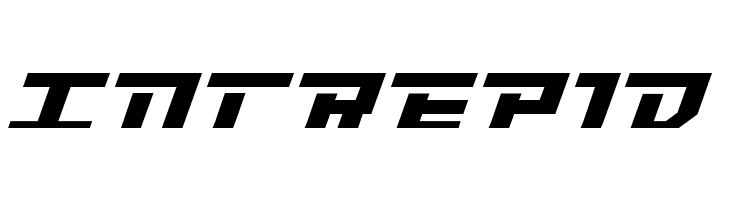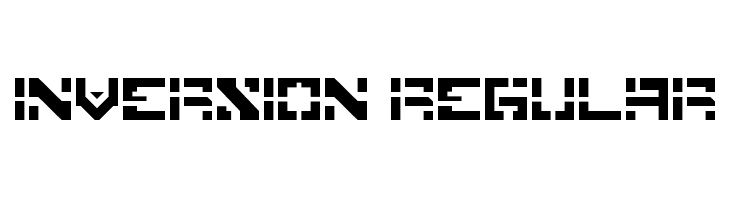
A bold, futuristic font with angular, geometric shapes and a dynamic slant.
A bold, futuristic font with geometric shapes and star embellishments.
A futuristic, geometric font with clean, angular lines and a tech-inspired style.
A futuristic, geometric outline font with consistent height and stylized characters.
A futuristic, geometric font with dots and lines creating a digital aesthetic.
A futuristic, dotted font with a digital, segmented design.
A futuristic, geometric font with bold, interconnected lines and a three-dimensional appearance.